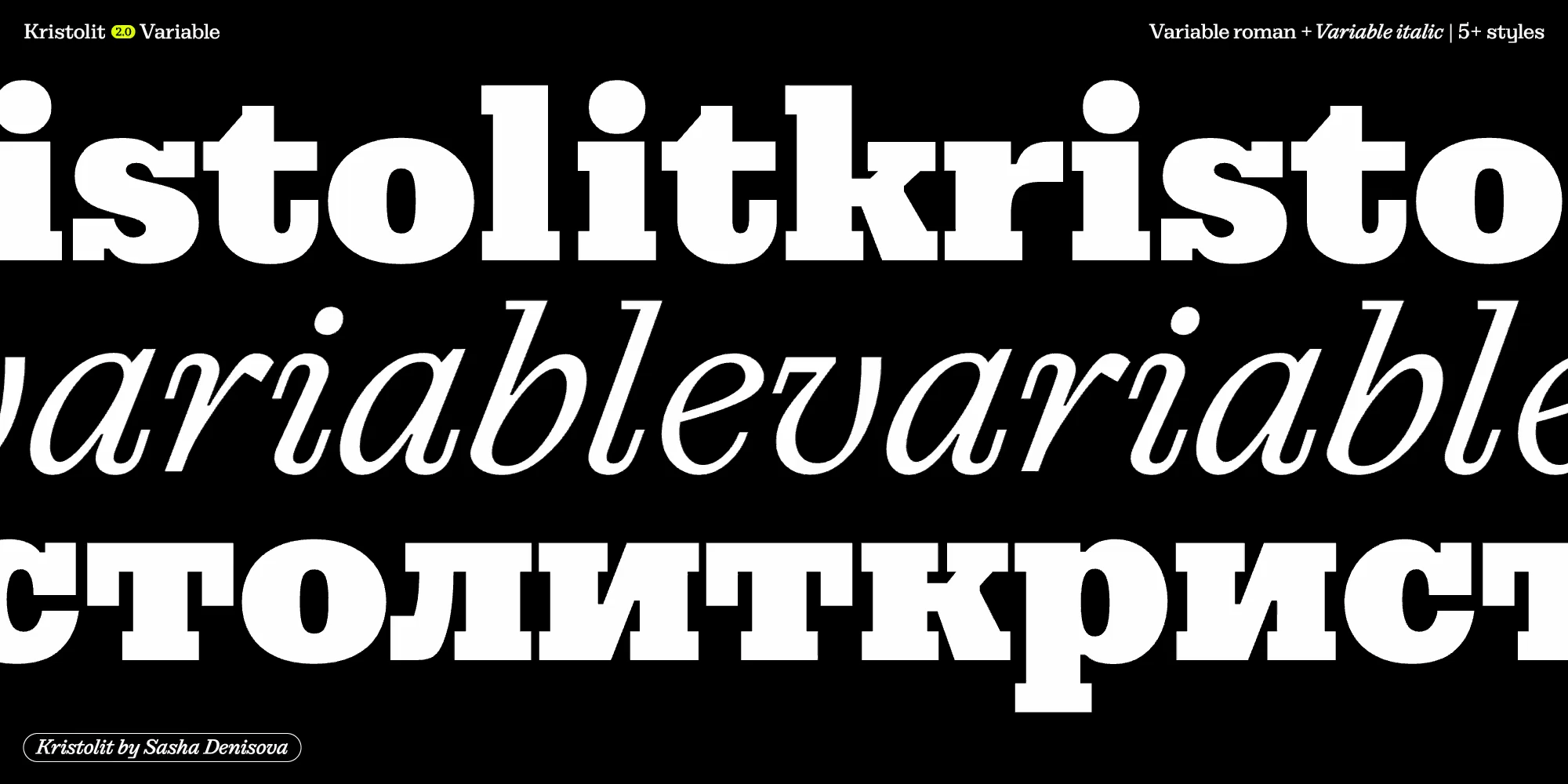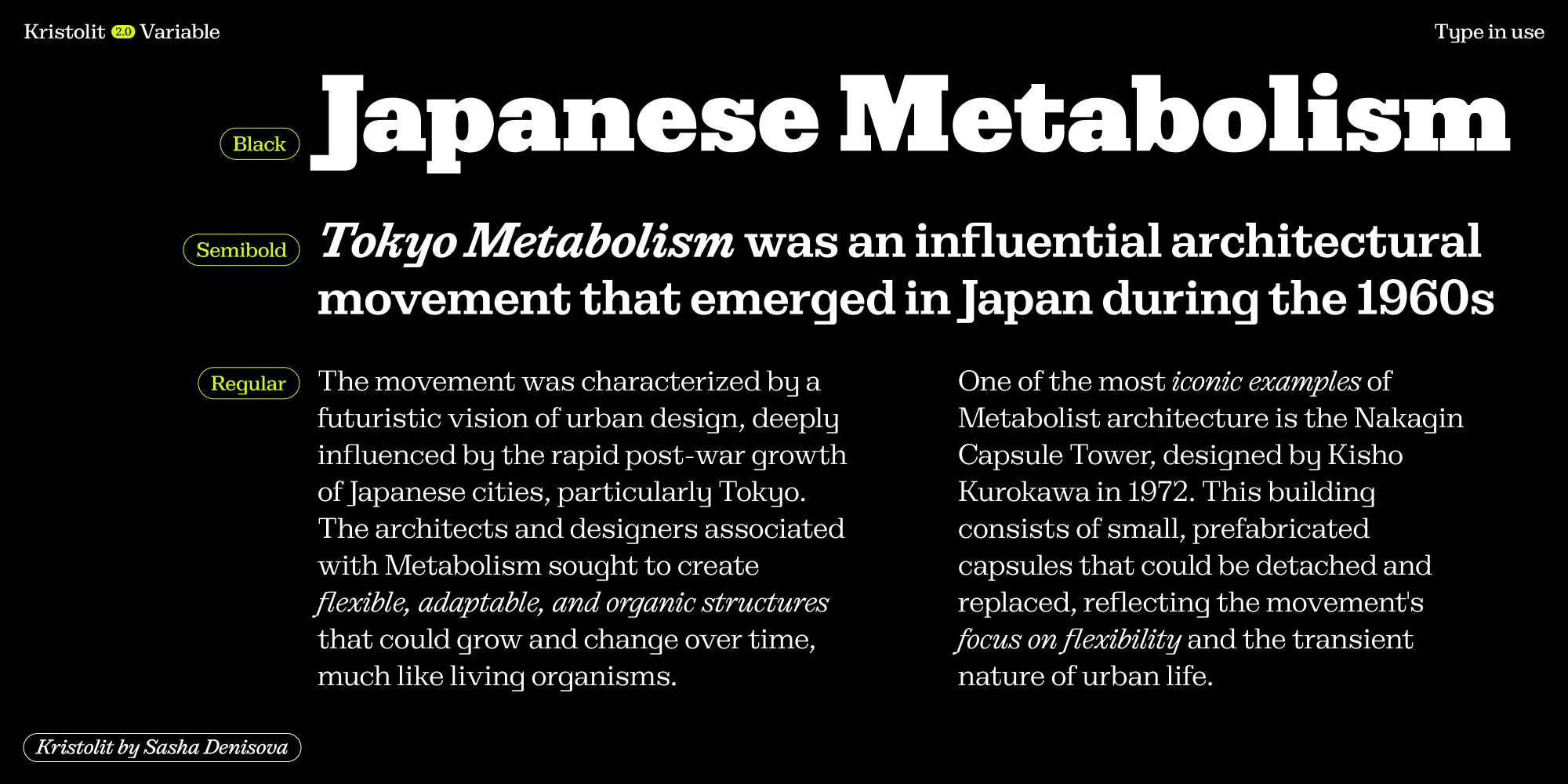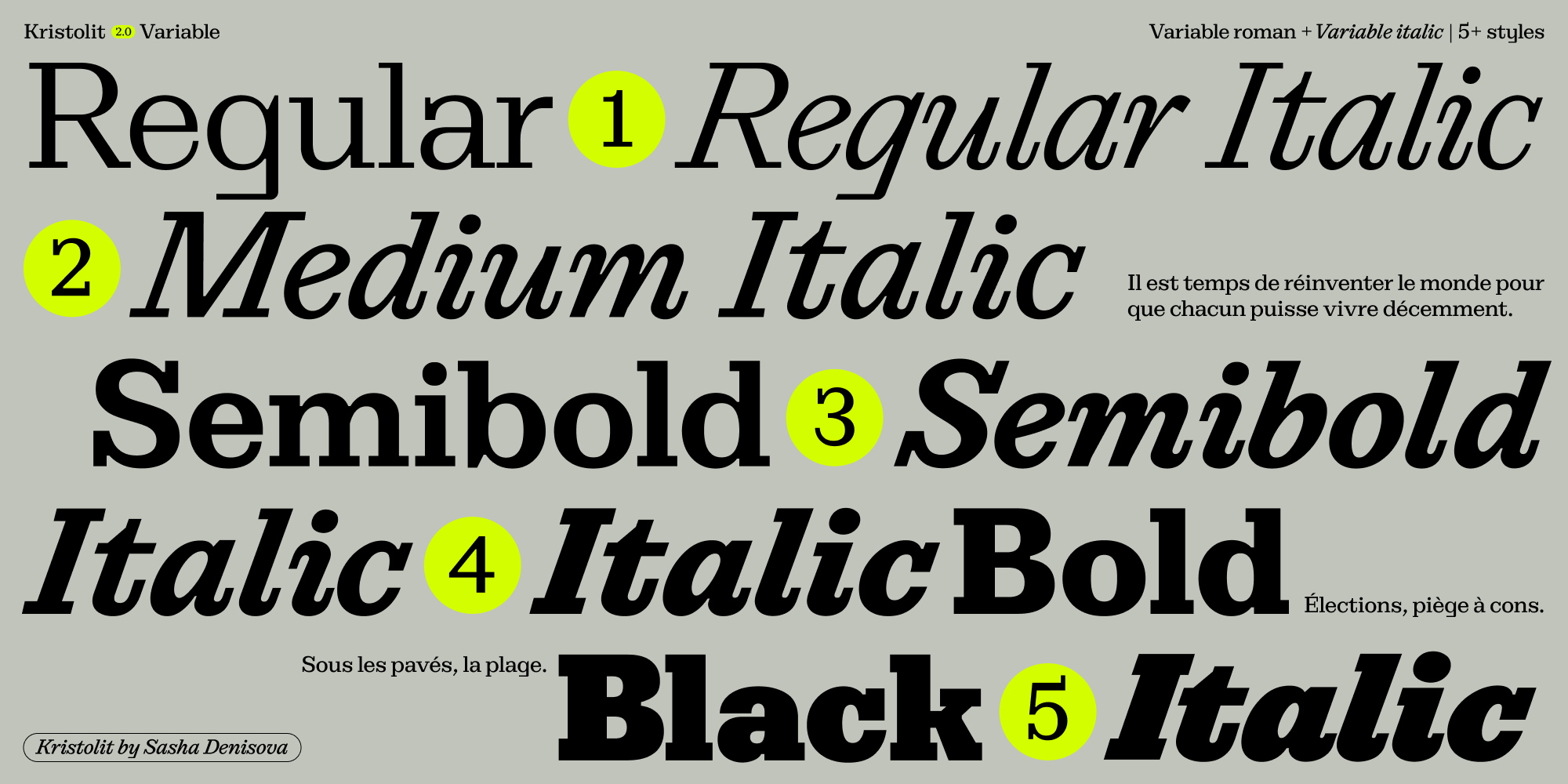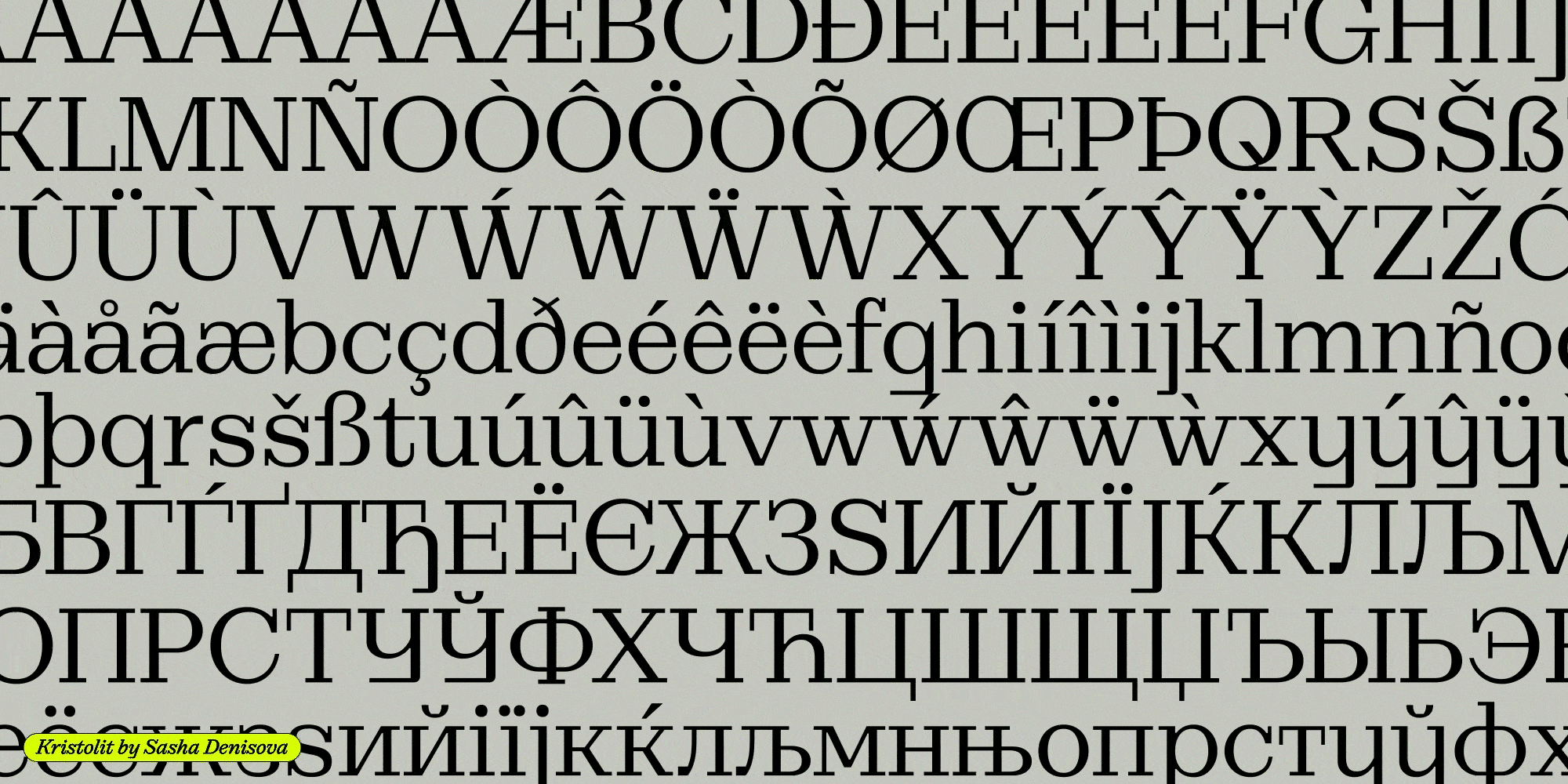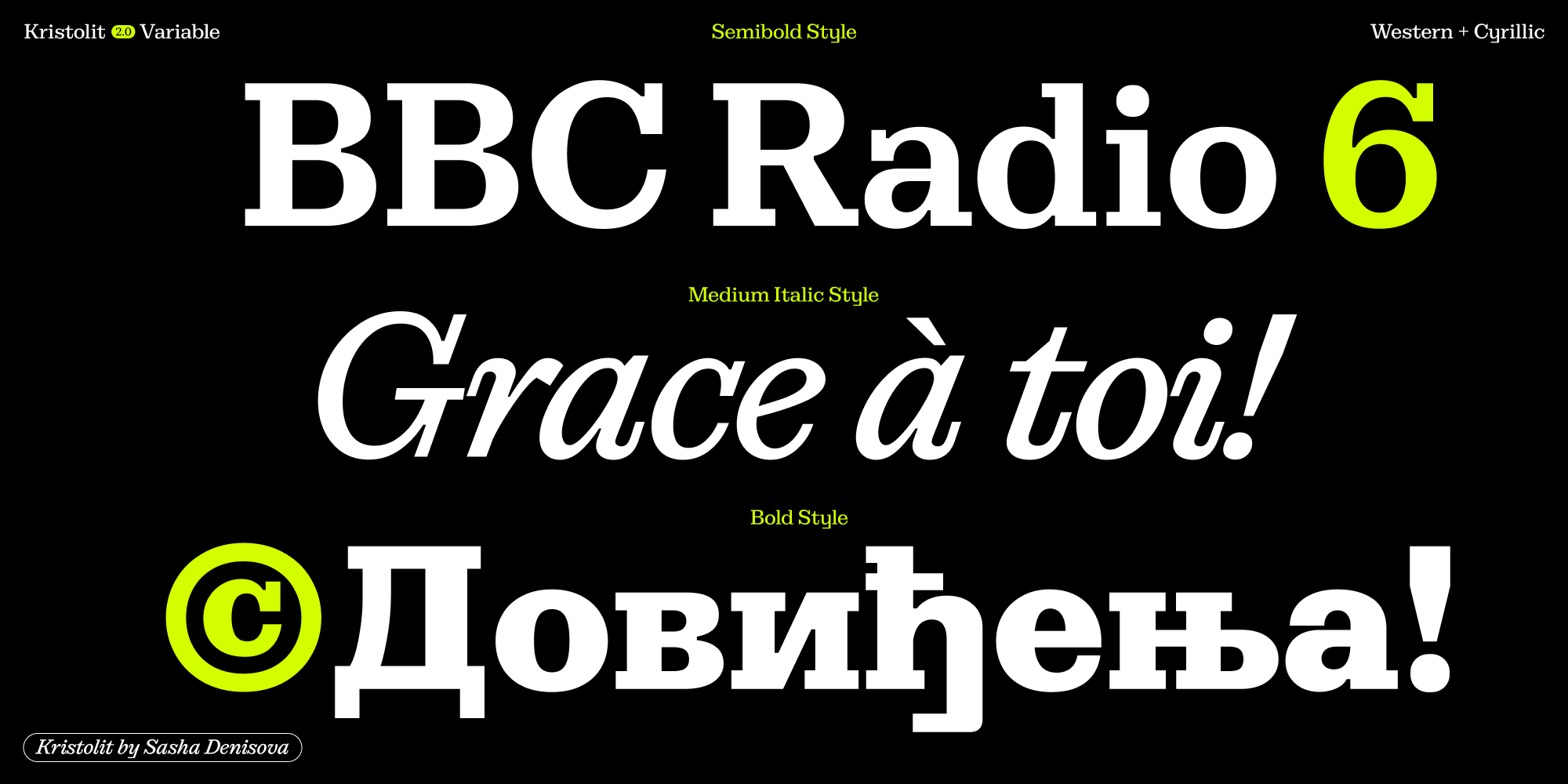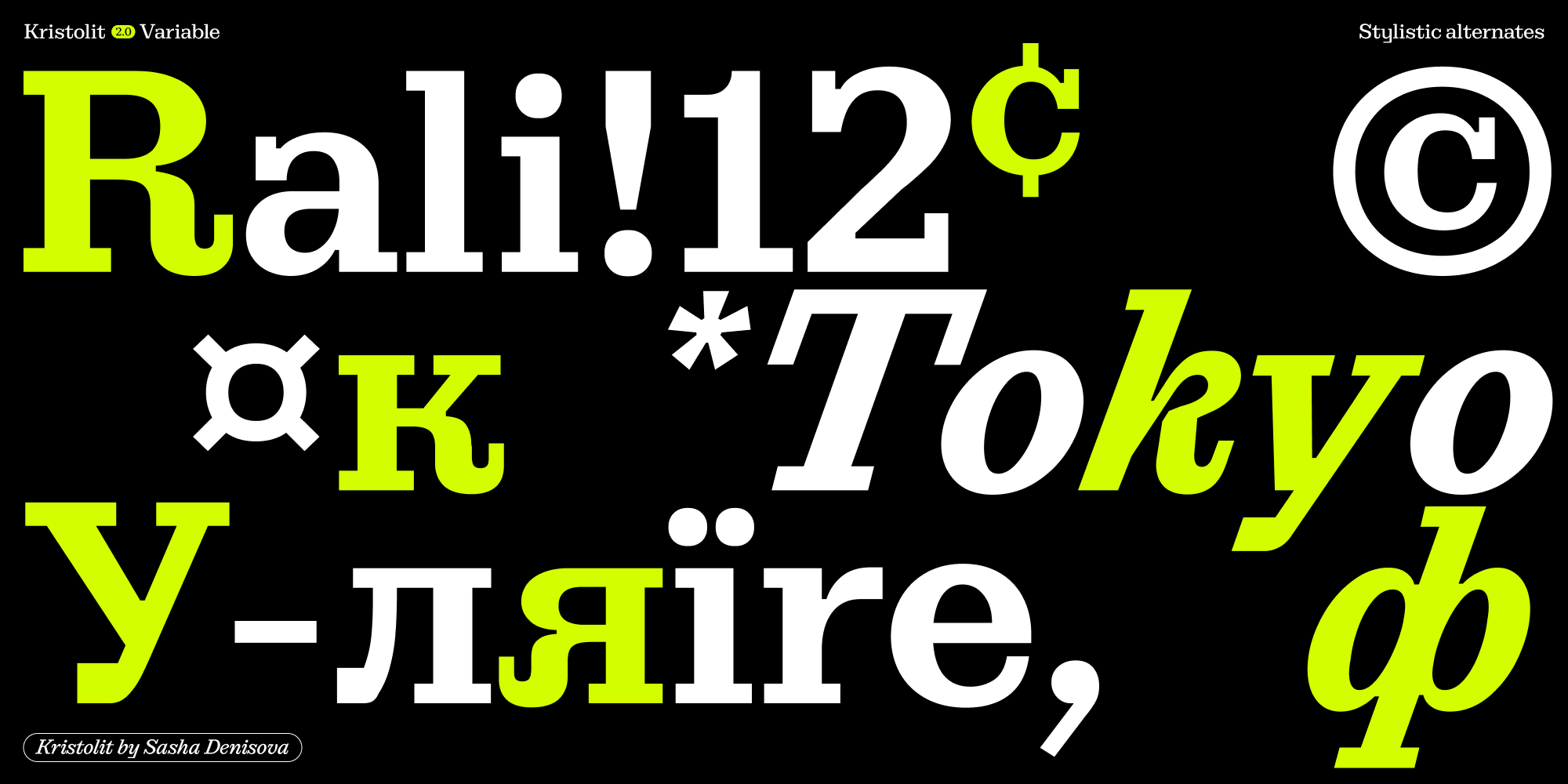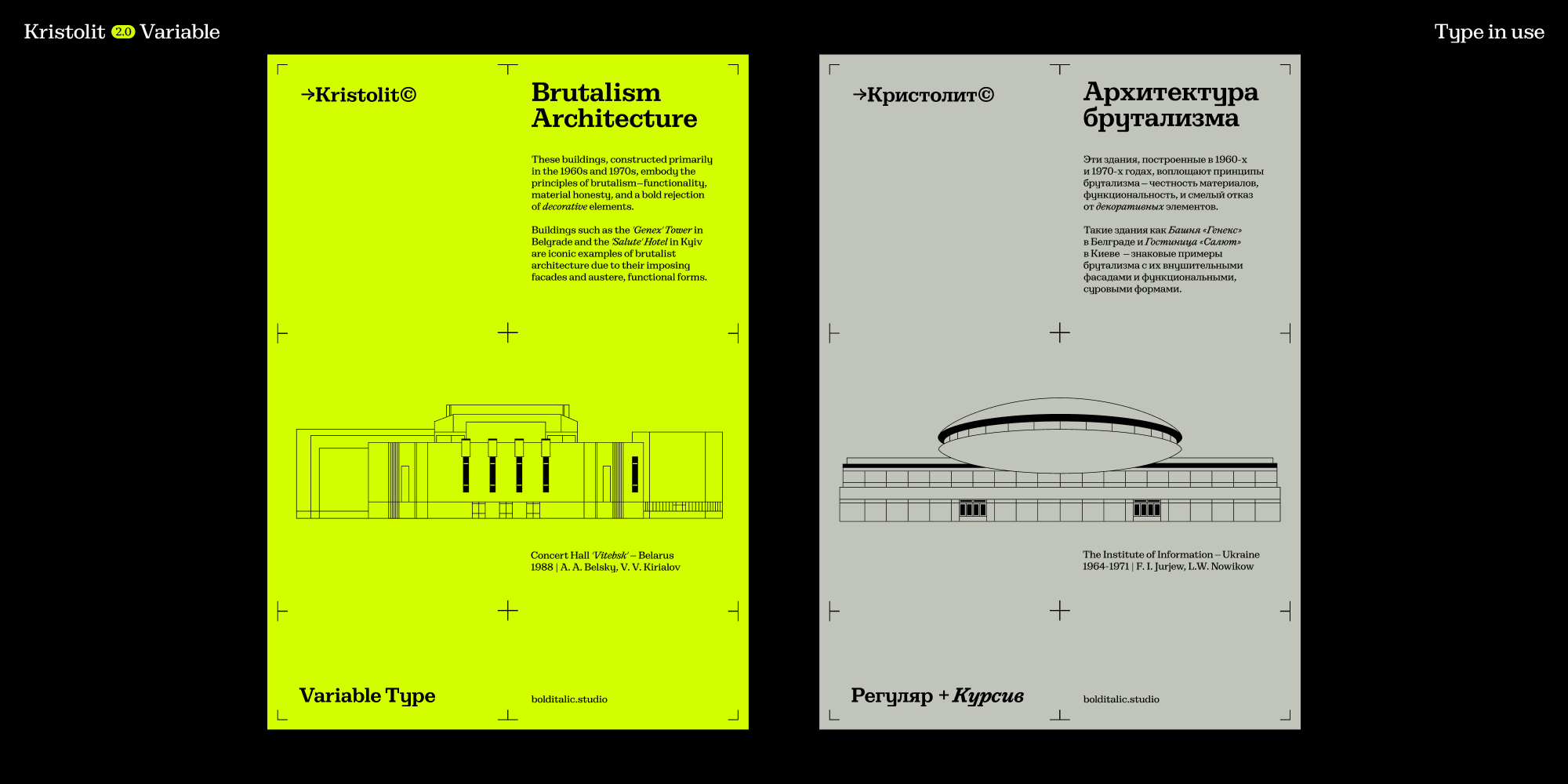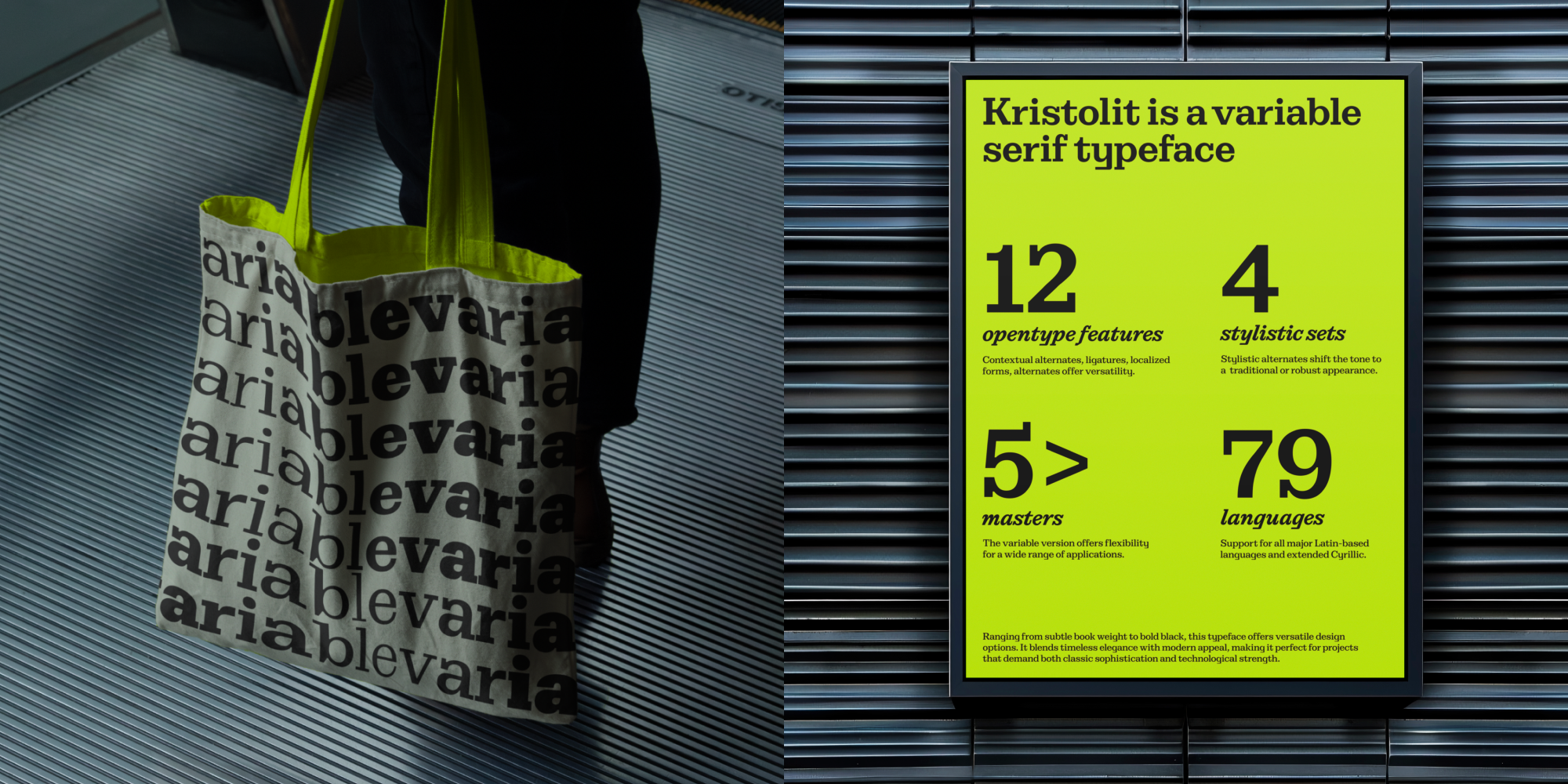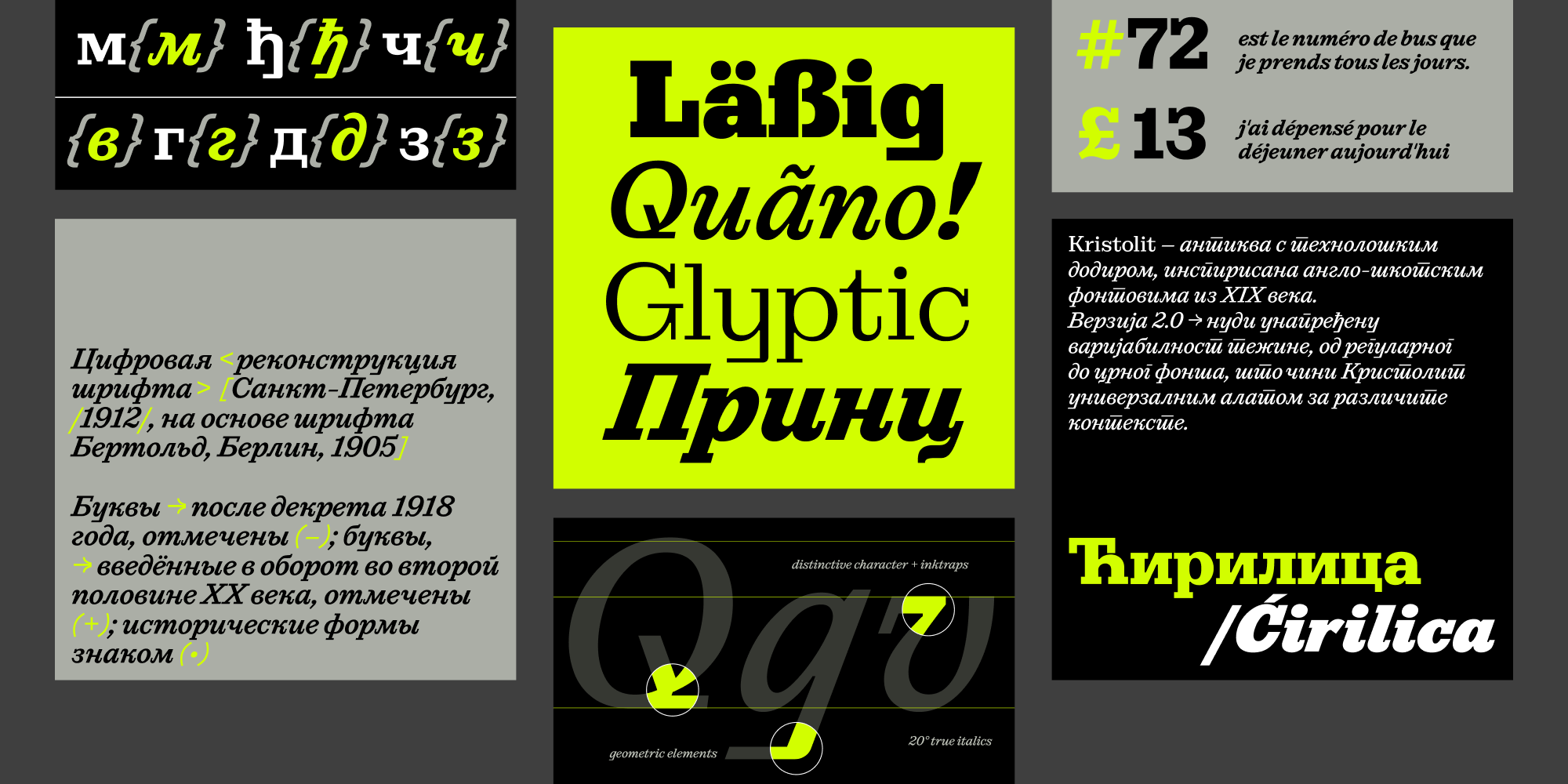
There are plenty of trendy serifs around, but there are challenges when it comes to truly technological and robust ones and sets with Cyrillic support. This is where Kristolit comes into play — a robust serif with a clear historical reference. Kristolit, designed by Belgrade-based art director Sasha Denisova has a bold and impactful character, designed both for the headlines and for the body text.
Kristolit is a Scotch Roman-inspired typeface with a technological twist. It is a variable font featuring both regular and italic styles. Ranging from subtle book weight to bold black, this typeface offers versatile design options. It blends timeless elegance with modern appeal, making it perfect for projects that demand both classic sophistication and technological strength.
The variable version includes weight axis, from regular to black. Kristolit supports all major Latin-based languages and also includes Cyrillic support for Serbian, Russian, Ukrainian, and Belarusian. It also features stylistic alternates that can shift the tone to a more traditional or concise appearance.
Elegant yet robust, Kristolit's ample curves contrast sharply with its bold lines, vertical axis, and strong stroke contrast. Its sharp, relentless geometry sets it apart from other serifs and historical references, while its moderate contrast ensures adaptability for both headlines and body text. This type family is optimized for editorial use, branding projects, and identities, striking a perfect balance between aesthetic experimentation, functionality, and legibility. The italic style adds a calligraphic touch while retaining its modern, tech-savvy character.
With impressive variability, Kristolit suits a wide array of contexts. OpenType features like case-sensitive punctuation, ligatures, and localized forms enhance its flexibility, while stylistic sets offer the option for a more historically influenced or distinct appearance. Kristolit is designed to meet diverse typographic needs with clarity and sophistication.